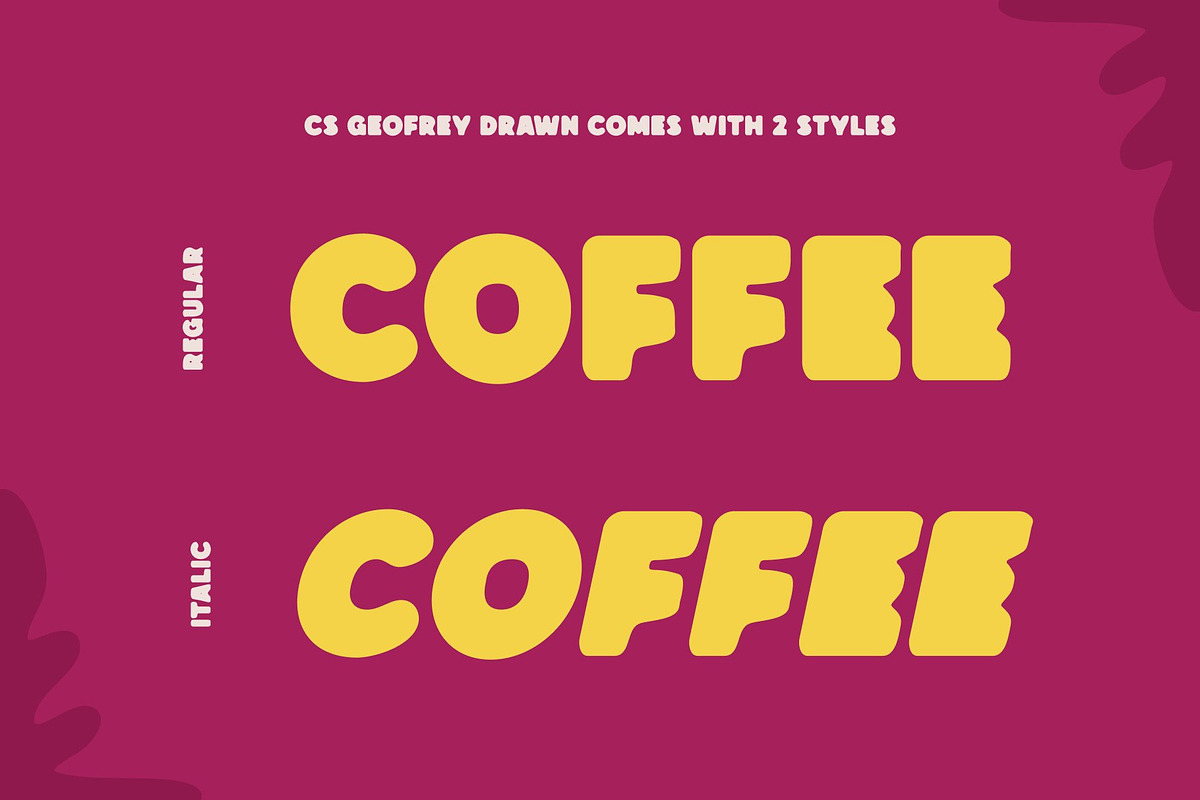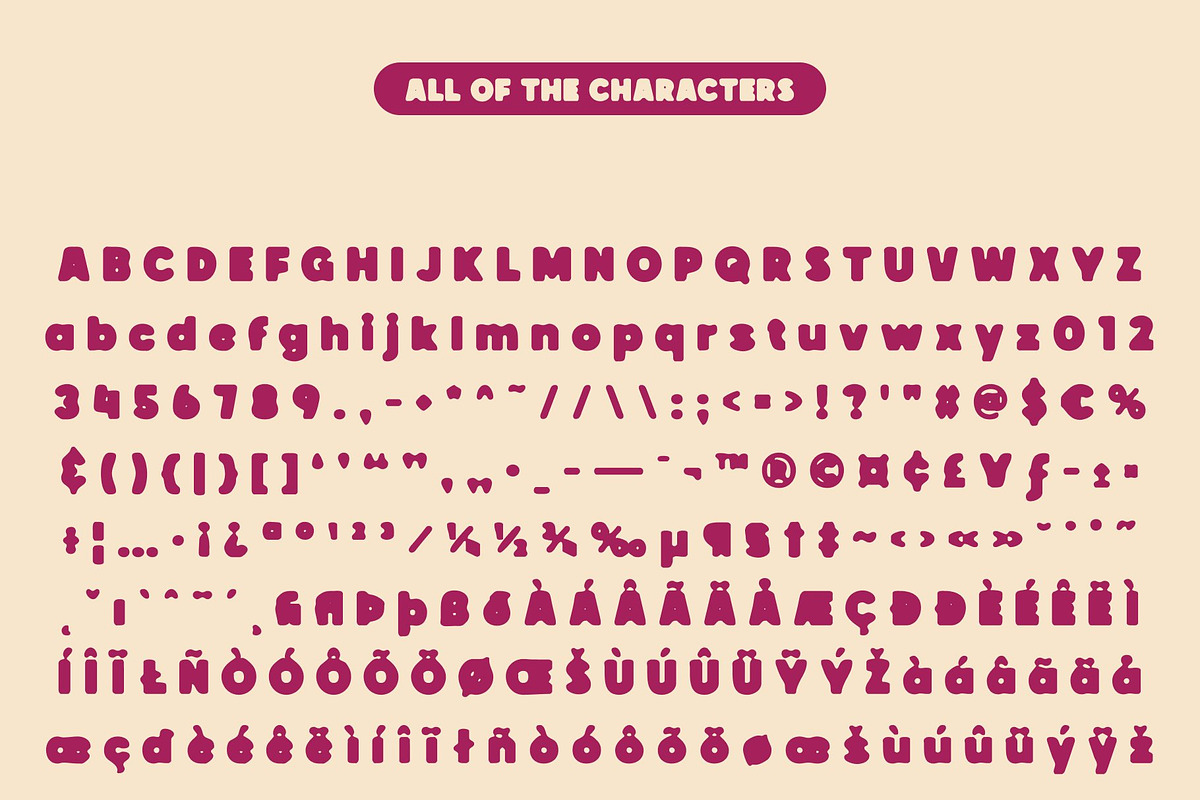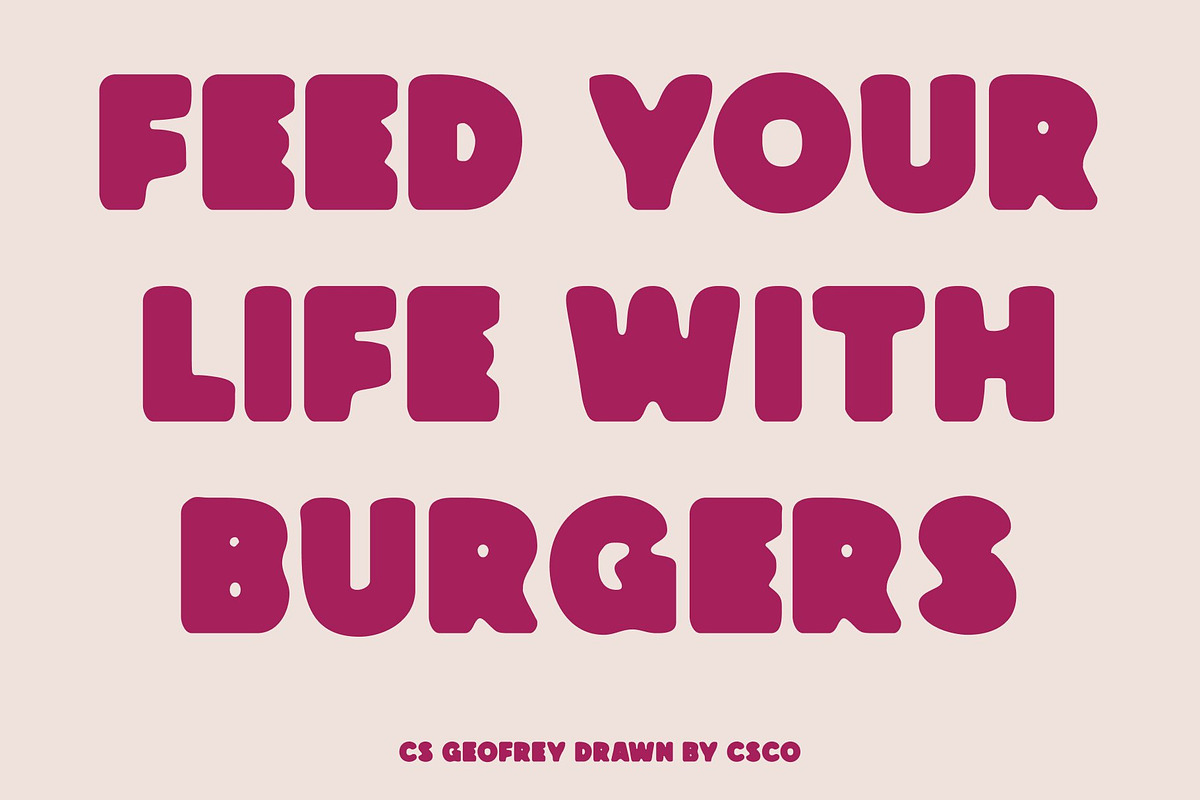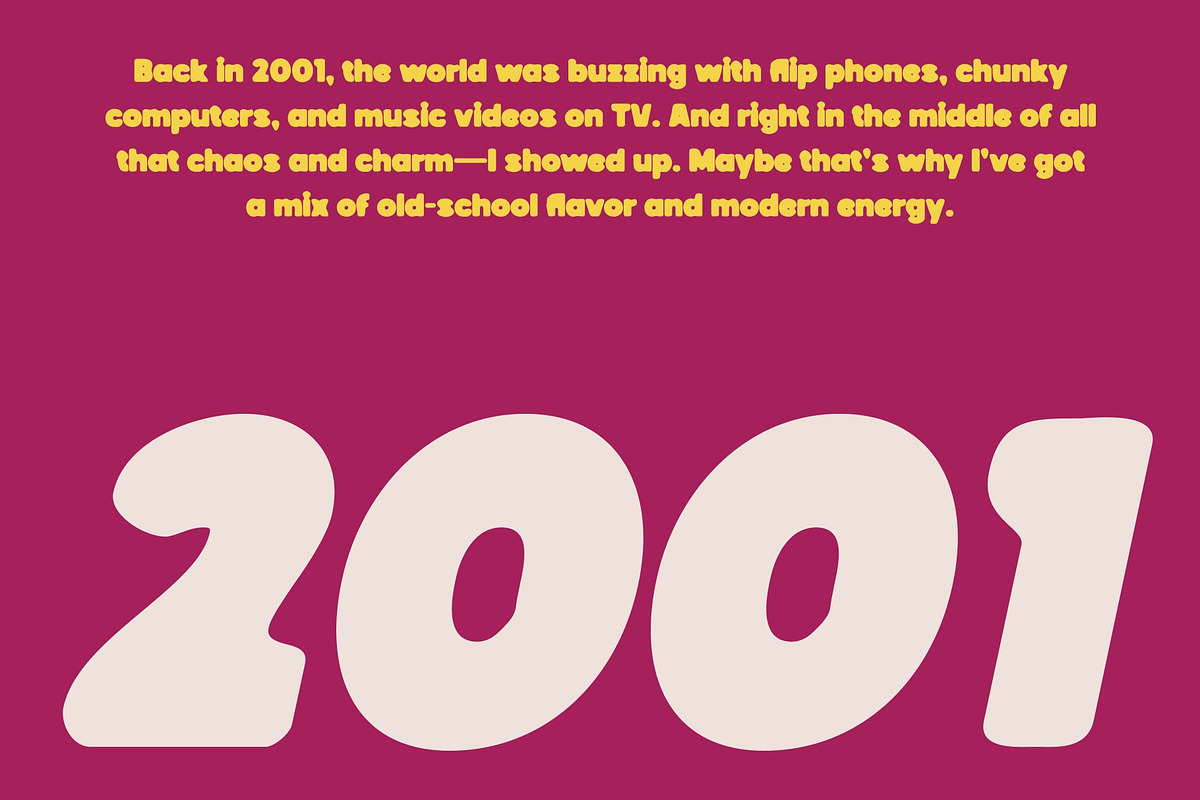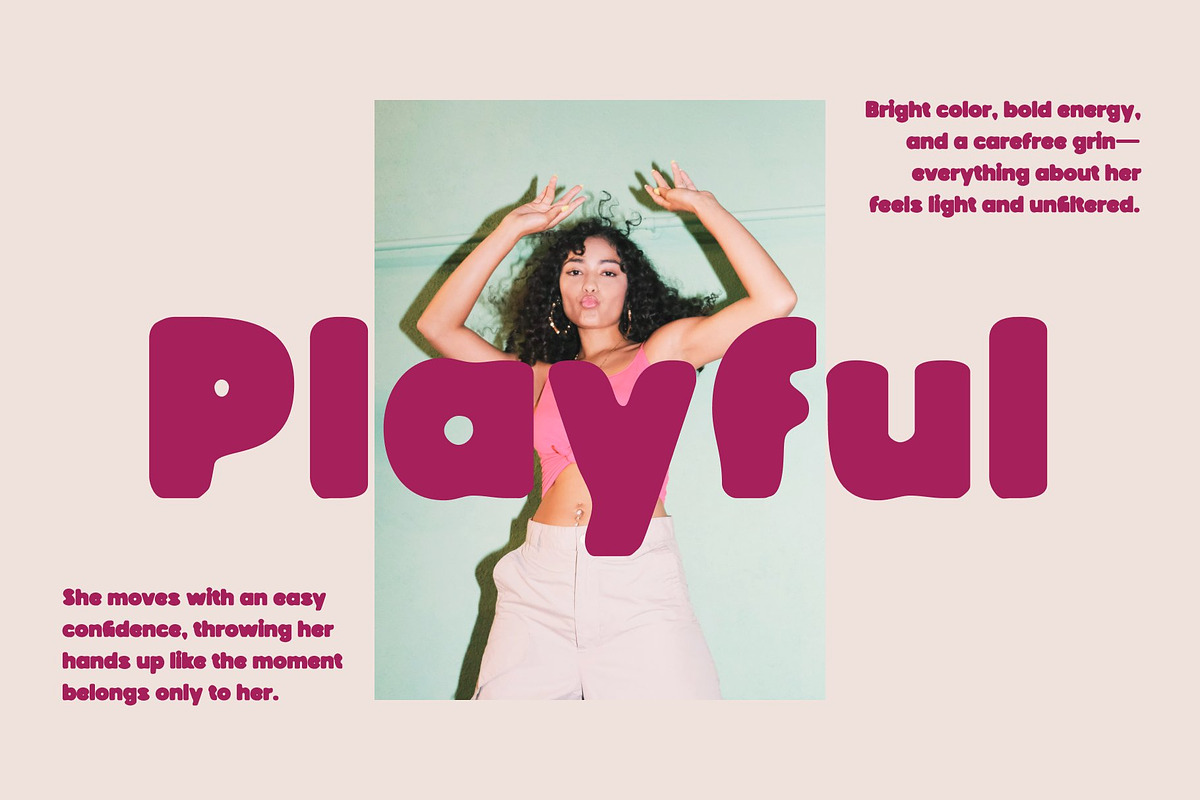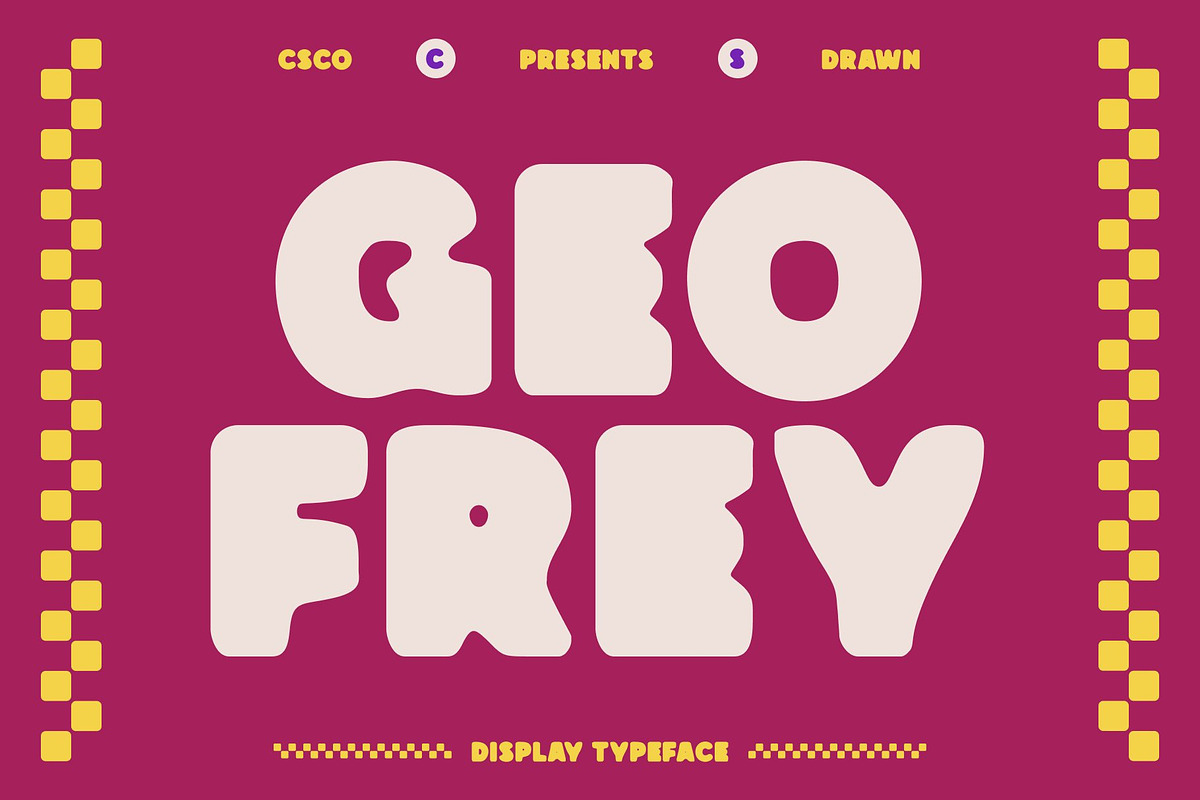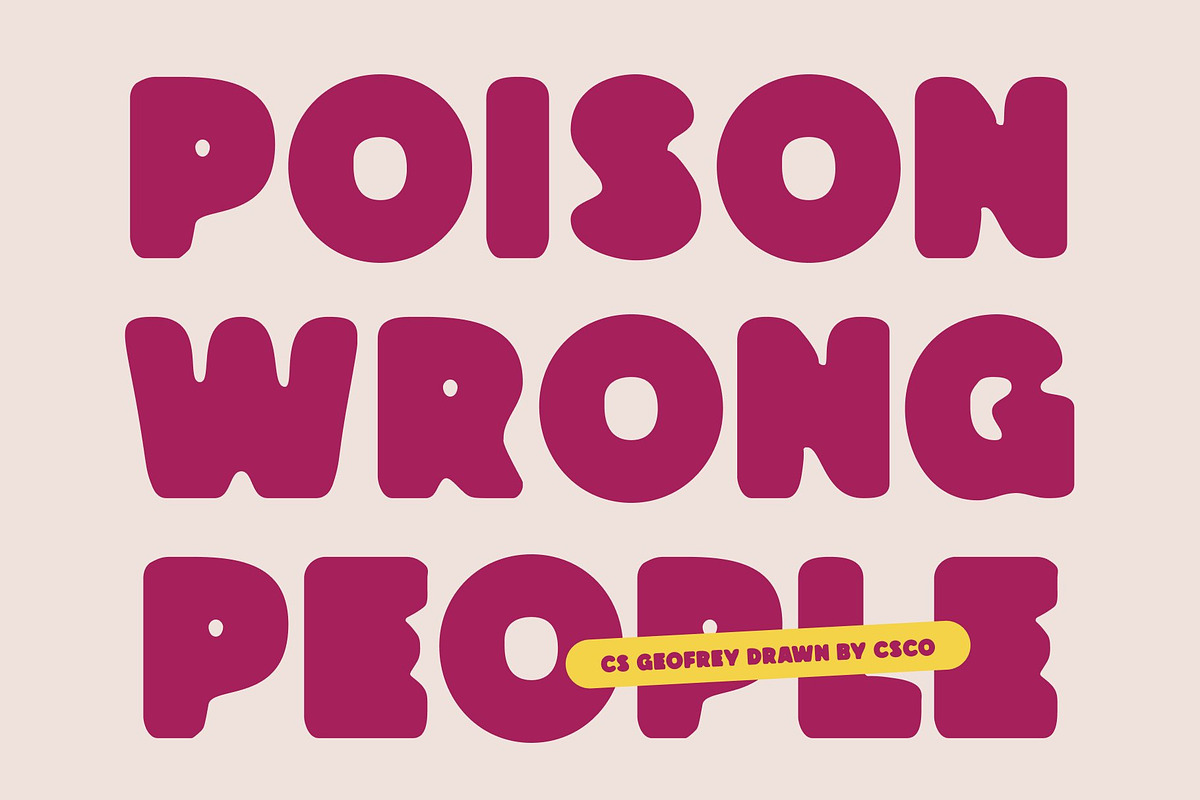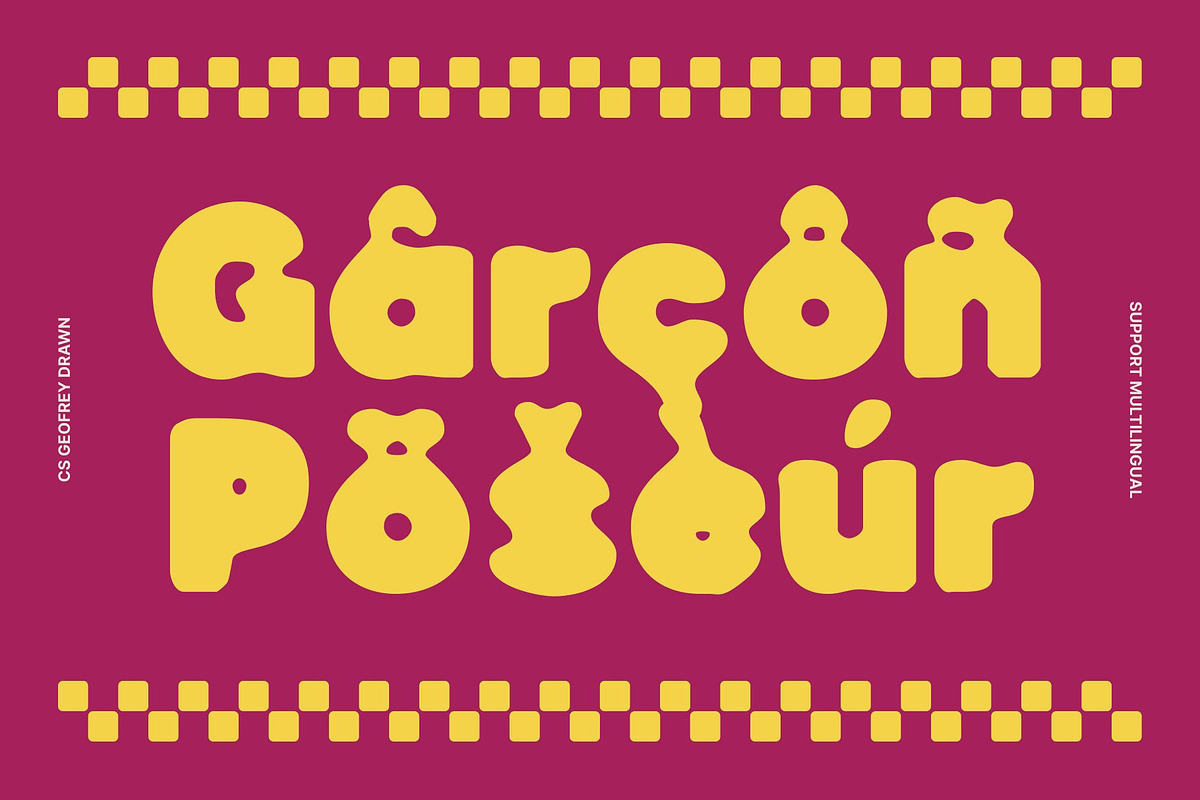
CS Geofrey Drawn
CS Geofrey Drawn – Bold Sans Serif Display Font with Artistic Flair
Striking Modern Shapes This is a bold sans serif display font crafted with strong, contemporary shapes that immediately capture attention. Its geometric yet dynamic letterforms create a confident and modern appearance, making it ideal for projects that require a bold typographic statement. Every character is carefully designed to maintain balance, structure, and visual impact, ensuring that your text stands out with authority and style.
Handmade Drawn Character The drawn effect adds a subtle handcrafted touch, giving each letter a lively and expressive personality. This artistic detail introduces energy and uniqueness, infusing the font with a playful yet professional feel. The result is a typeface that combines precision with creativity, offering designers the ability to communicate both clarity and character in their work.
Versatile for Creative Applications Perfect for headlines, branding, posters, promotional campaigns, and editorial layouts, this font is highly adaptable across a wide range of design projects. Its bold forms ensure excellent readability at large sizes, while the drawn texture adds personality, making every composition visually engaging and memorable.
Modern, Energetic, and Expressive This font delivers a contemporary, energetic, and expressive aesthetic that balances impact with artistic flair. It is an ideal choice for designers seeking a typeface that is not only visually striking but also full of character, creativity, and modern appeal.
- CS Geofrey Drawn Regular
- CS Geofrey Drawn Italic